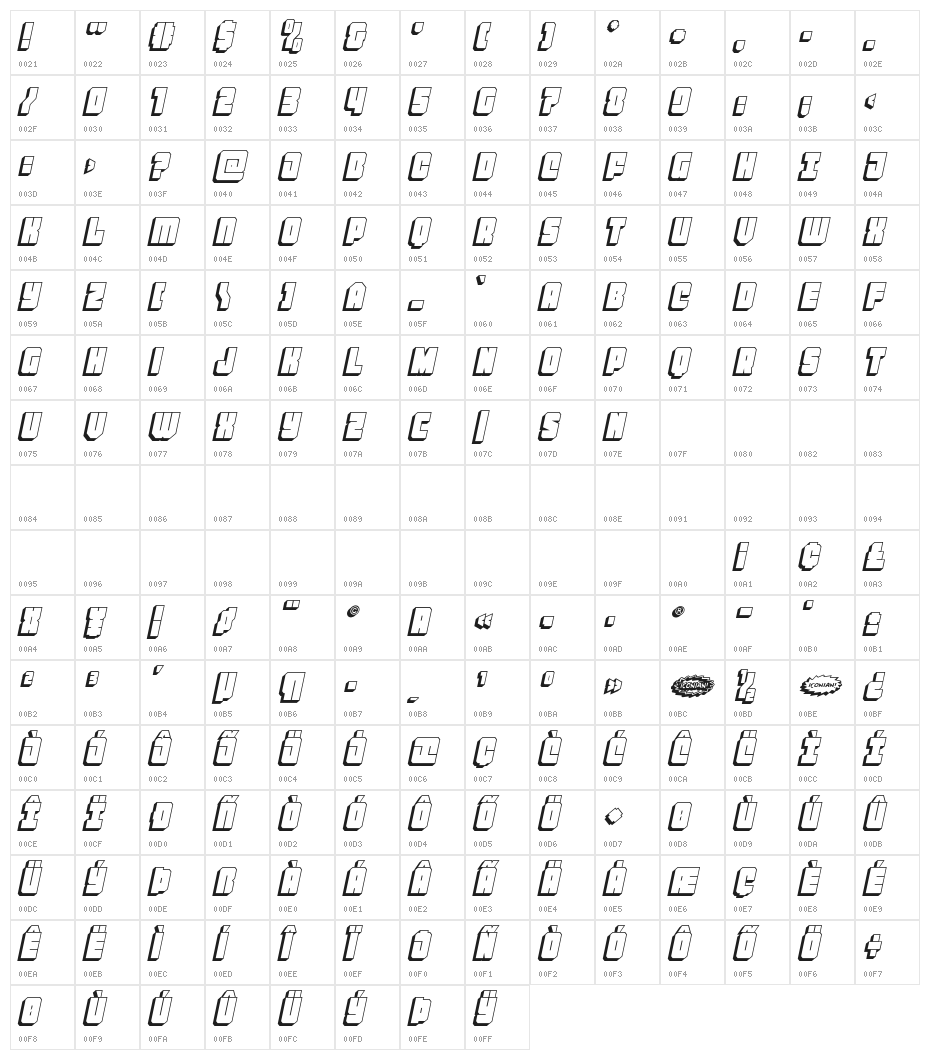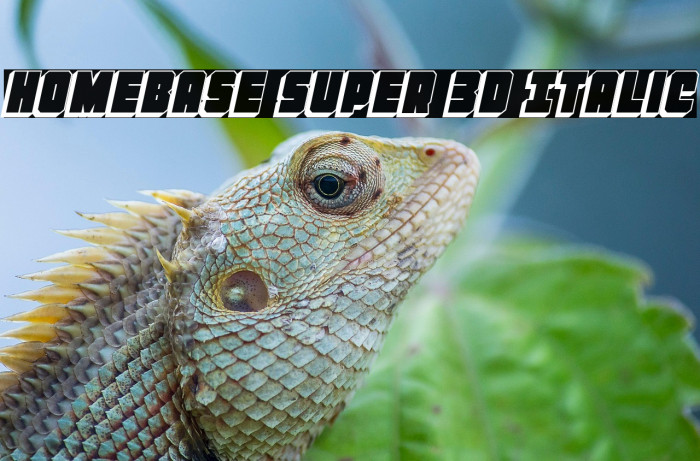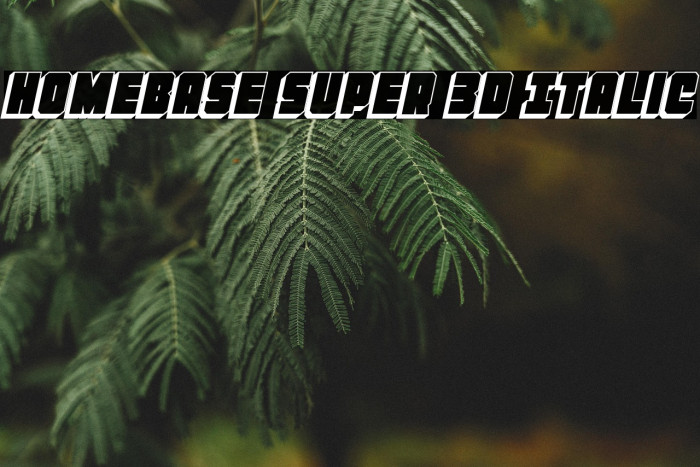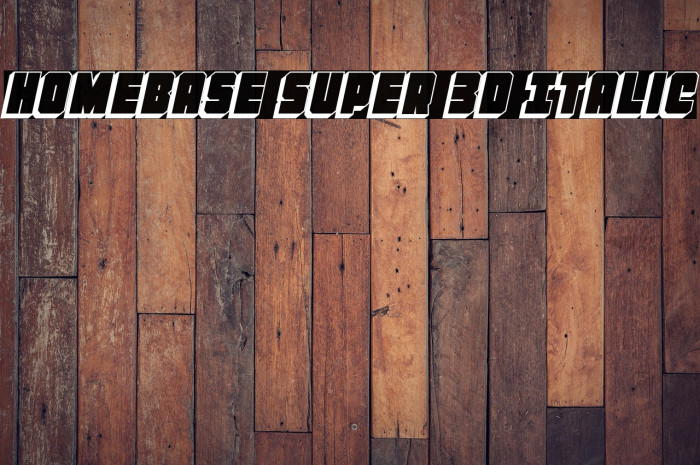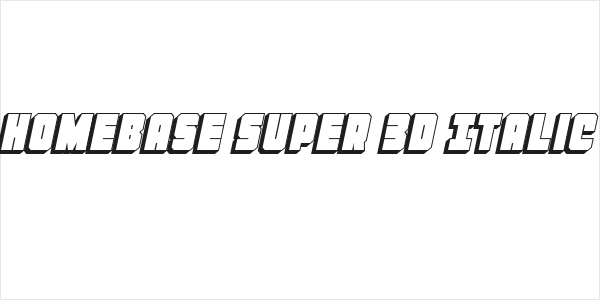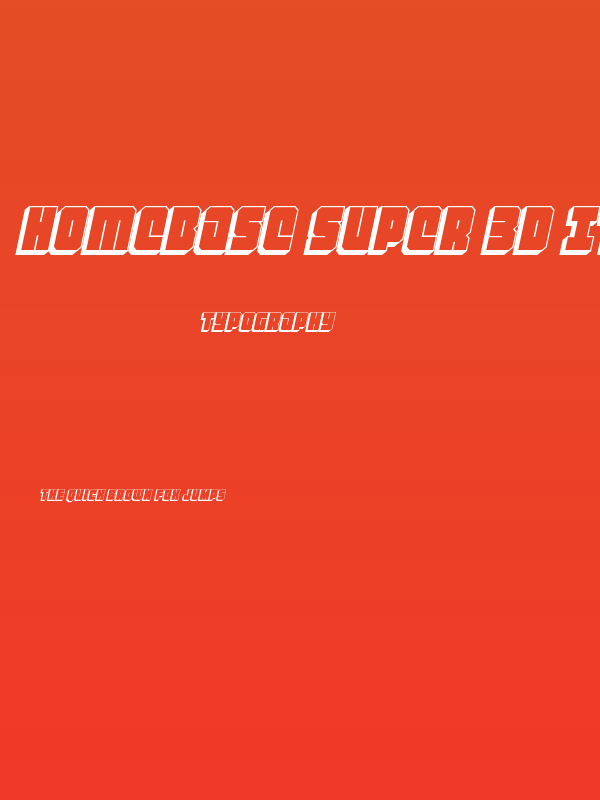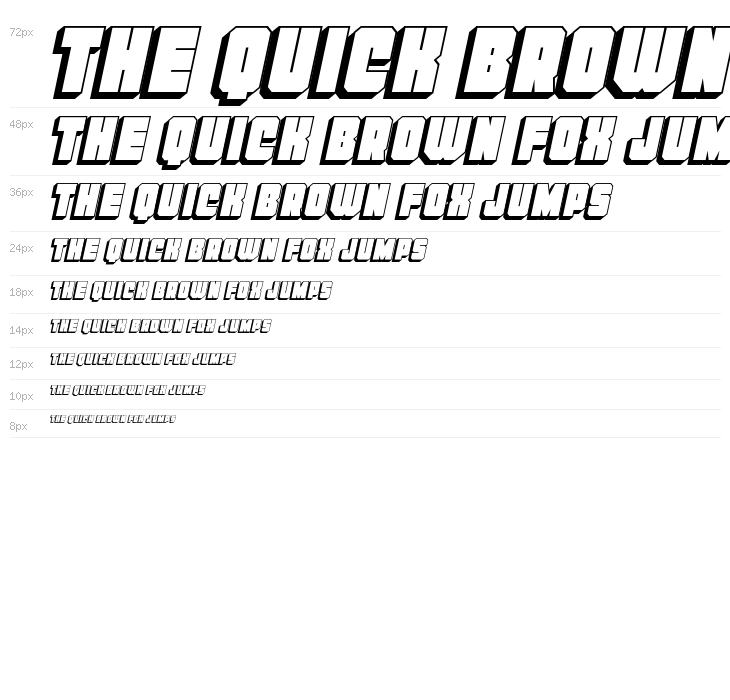
Homebase Super 3D Italic Font
Homebase Super 3D Italic Description
This font features a bold, three-dimensional appearance with a strong italic slant, creating a dynamic and impactful look. The characters are blocky and robust, with a shadow effect that enhances the 3D illusion. The uppercase and lowercase letters maintain a consistent style, emphasizing the font's cohesive design. The numbers and special characters are equally bold and follow the same 3D italicized style, making them stand out prominently. This font is designed to grab attention and convey a sense of strength and modernity.
| Proposed Projects | Ideal for video game titles, posters, logos, and any design requiring a strong, eye-catching font. |